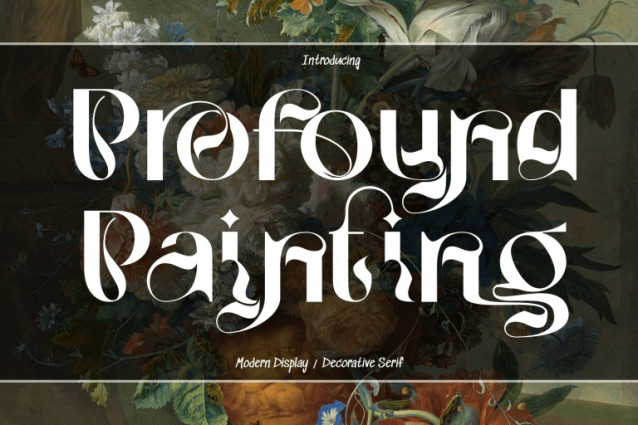
Profound Painting – Sans Ligatures Font – A Modern Ornamental Sans-Serif Display Font, is a bold ornamental Sans display font that fuses modern refinement with artistic expressiveness. The letterforms feature high contrast strokes, sharp serifs, and elegant curves, enhanced by decorative swashes and fluid terminals that add rhythm and sophistication to every word. This font’s distinctive style balances strength and delicacy, making it ideal for luxury branding, high-fashion editorials, art-inspired posters, album covers, and creative packaging that demands a touch of grandeur and individuality.
🔤Font Features:
Uppercase & Lowercase Letters
~100 Special Ligatures
Accented Characters for multilingual support
🔤About 100 ligatures combined with Stylistic Alternates Font: